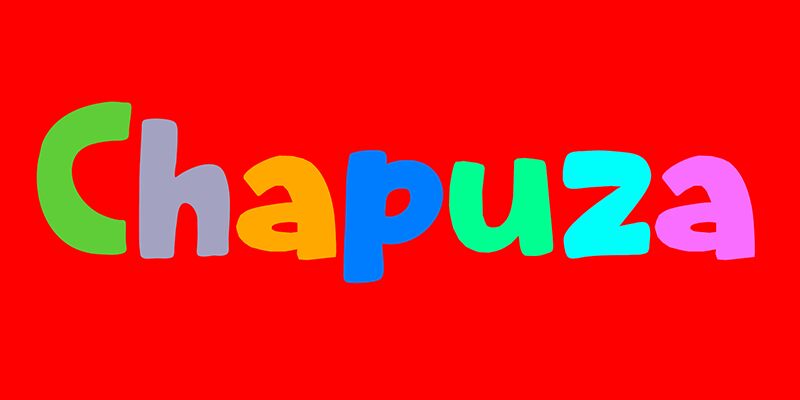
Chapuza DEMO Regular
Chapuza font is a soft casual display typeface by David Kerkhoff, created in an approachable free design that’s instantly enjoyable for any reader. The comic-style rounded font combines a modern appeal with bold lines for creative unordinary look that captivates and entertains with its unique friendly character.
Capture attention and entertain in designs like social media posts, cartoon related projects, t-shirts designs, logotypes, sticker design, posters or billboards. Use the font even on food packaging (mainly meant for children) or music festival branding where its inclusion would make all the difference.